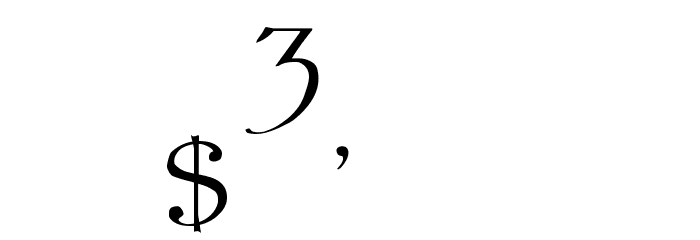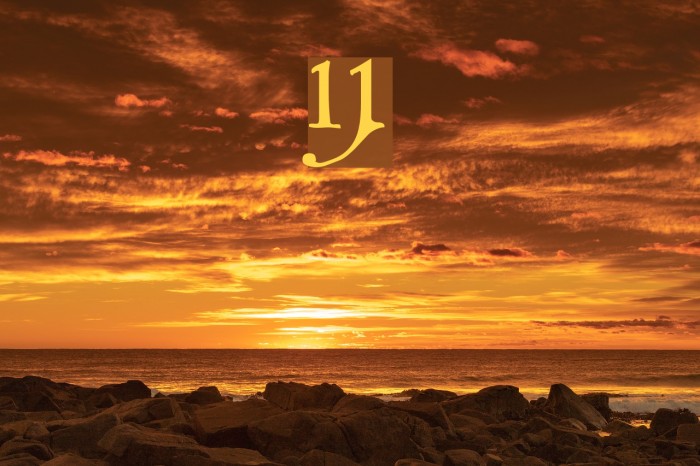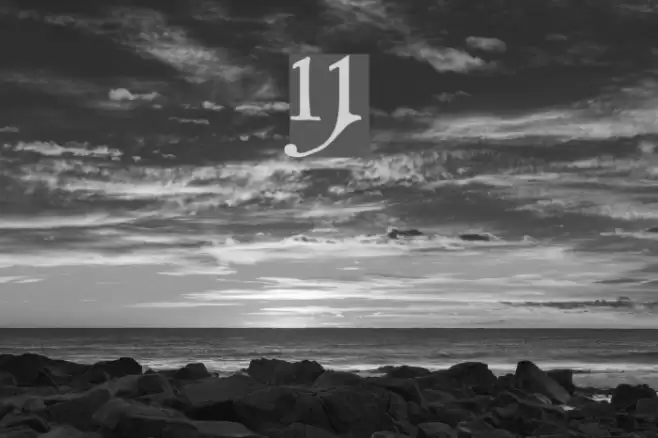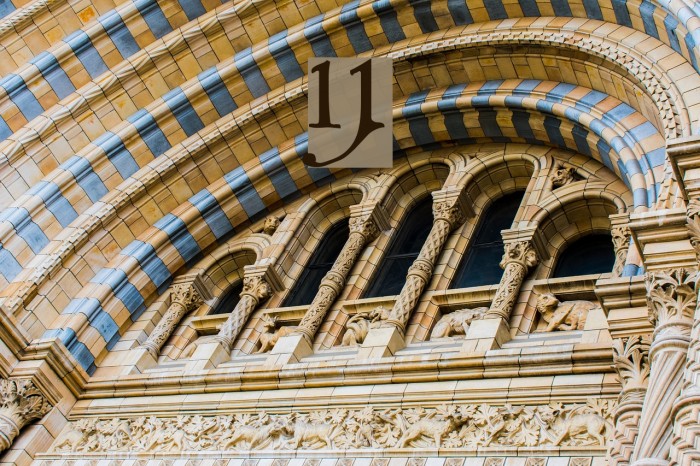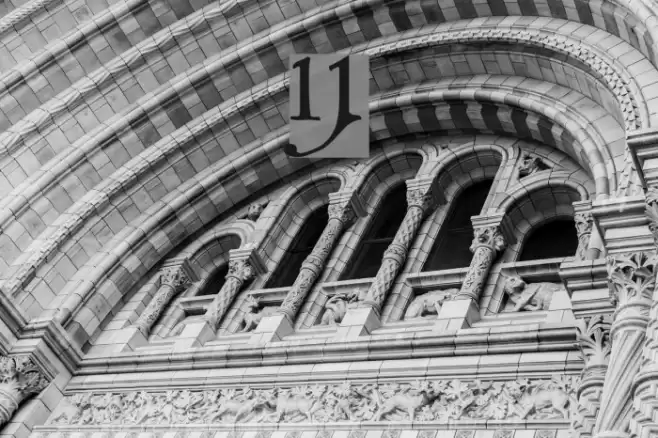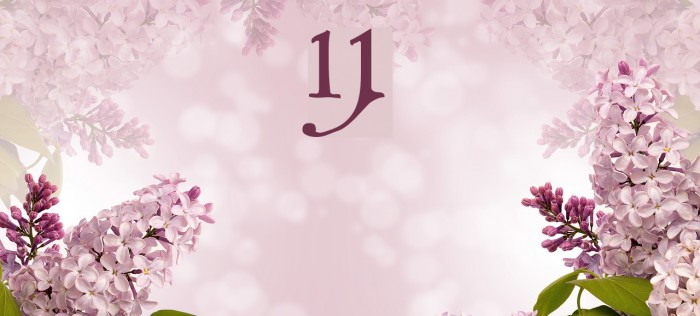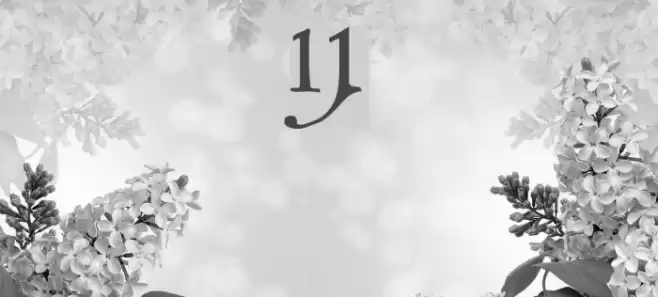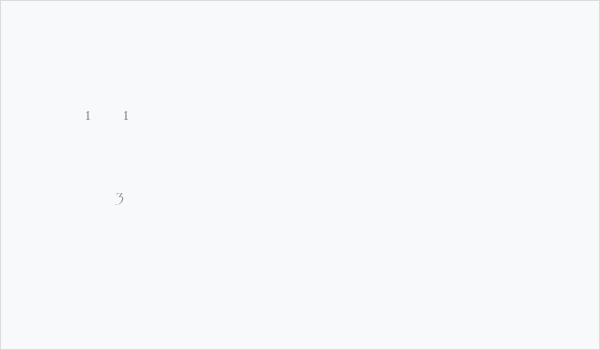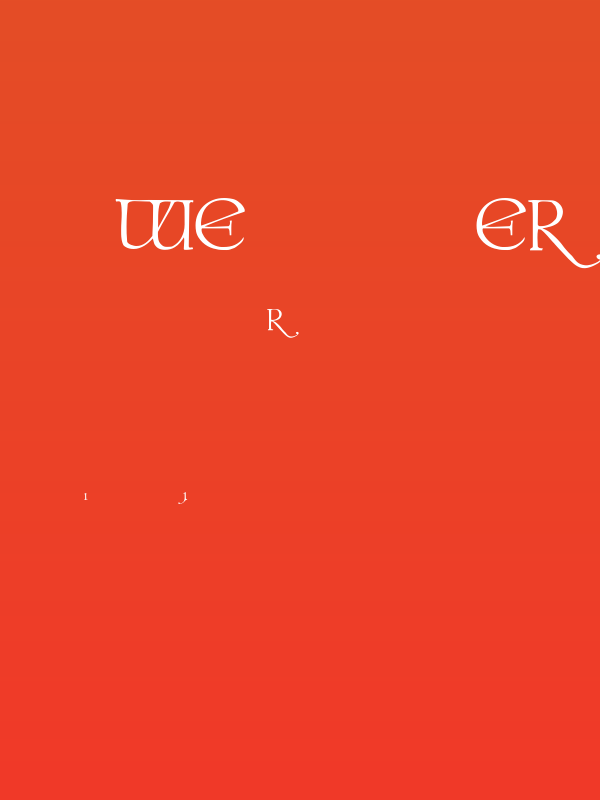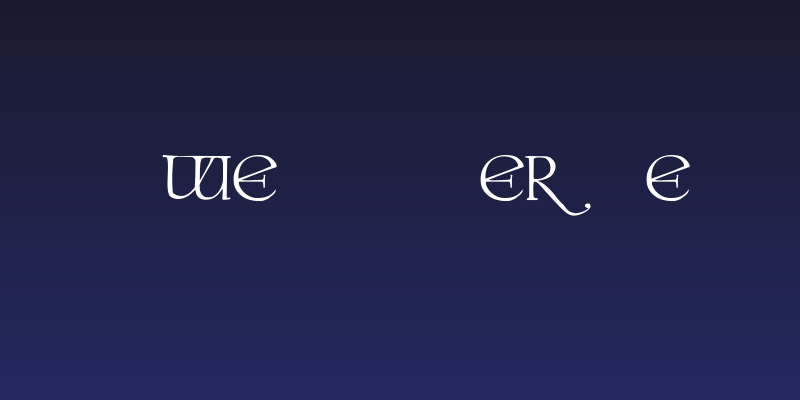
Colwell - Alternates Font
Colwell - Alternates Description
This font exhibits a highly decorative and artistic style, characterized by its elegant and flowing letterforms. The uppercase letters feature intricate swirls and extensions, giving them a regal and sophisticated appearance. The lowercase letters maintain a consistent style, with smooth curves and delicate lines. The numerals and special characters are equally ornate, adding a touch of elegance to any design. The overall aesthetic is reminiscent of classic calligraphy, making it suitable for projects that require a touch of refinement and grace.
| Proposed Projects | Ideal for wedding invitations, luxury branding, high-end product packaging, and decorative posters. |